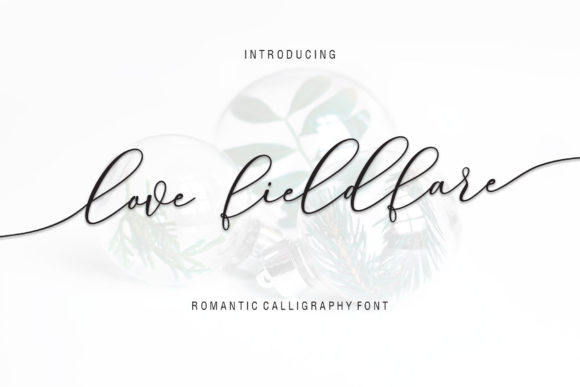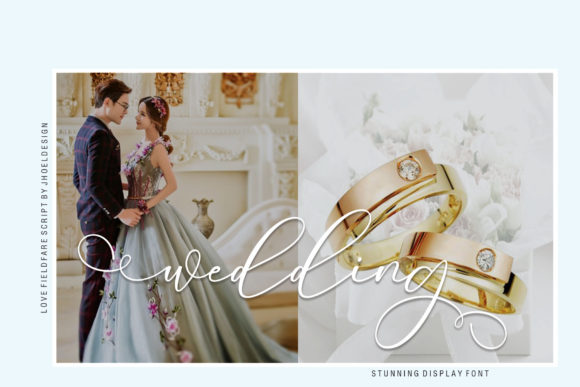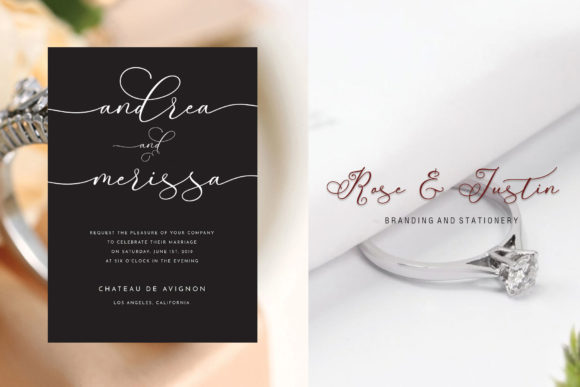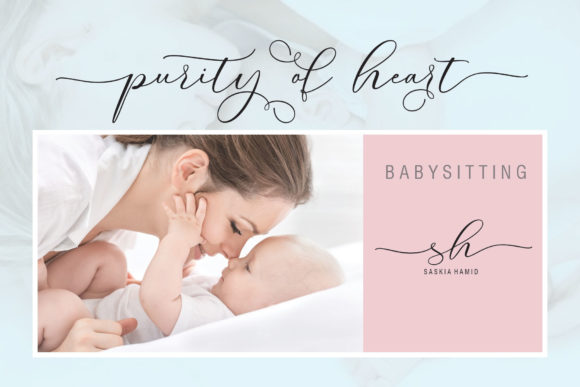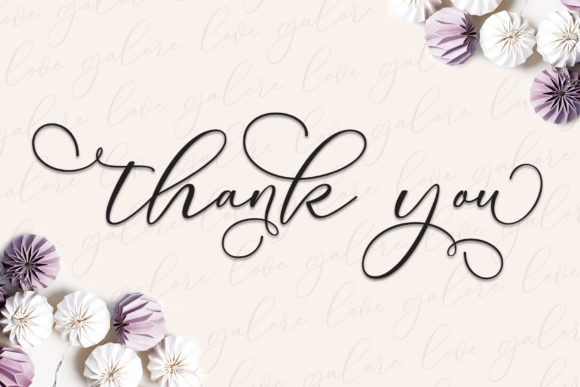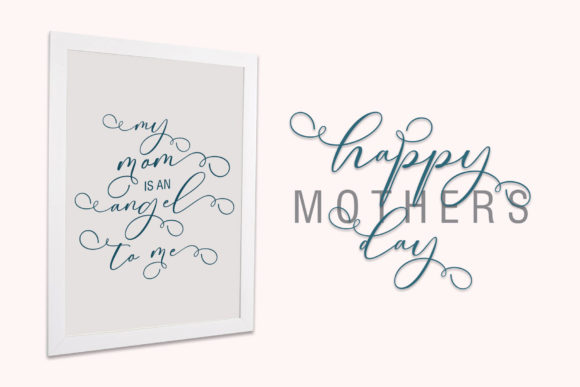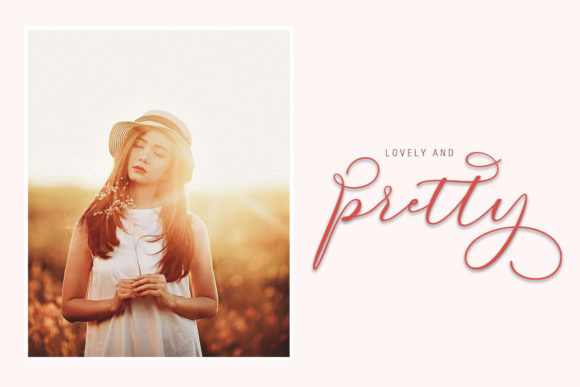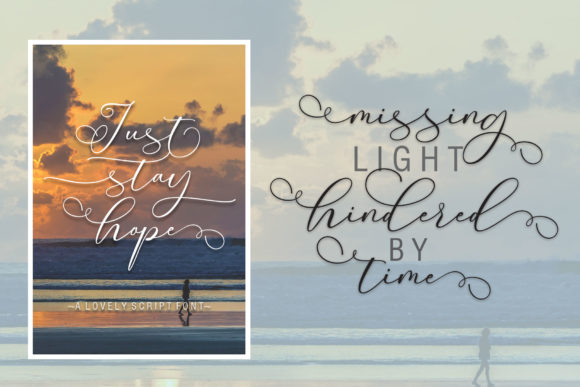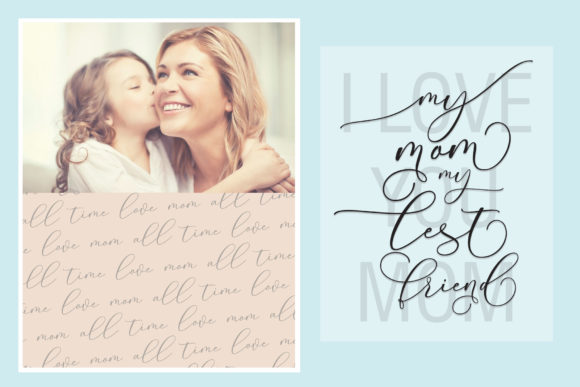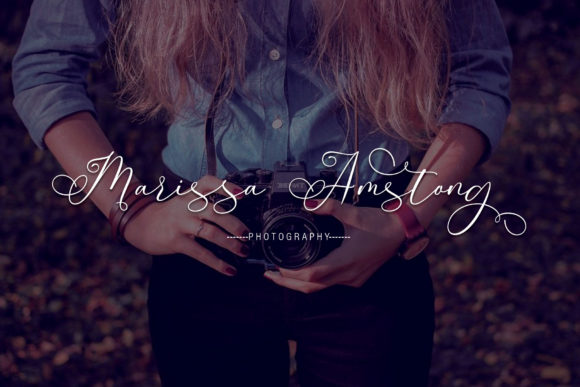
Love Fieldfare Font
About Love Fieldfare Font
The Love Fieldfare is a romantic calligraphy font. It has an elegant feel which will give your design an luxurious feel.
It can be used for logos and branding, wedding designs, social media posts, advertising, product designs, and much more!